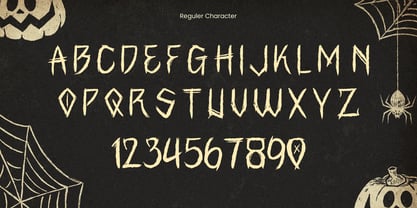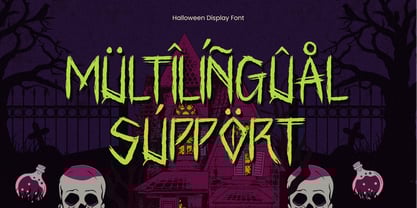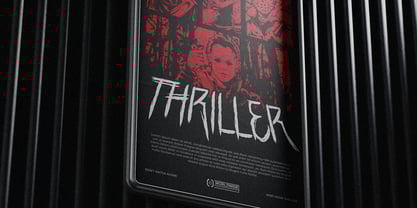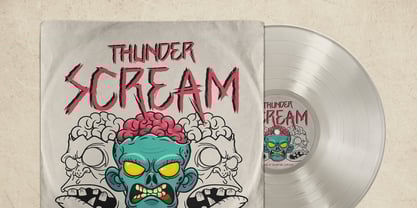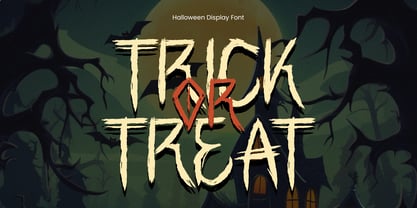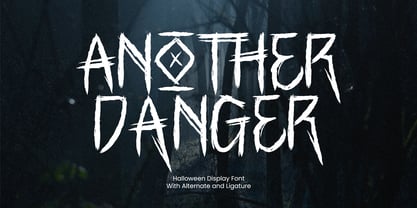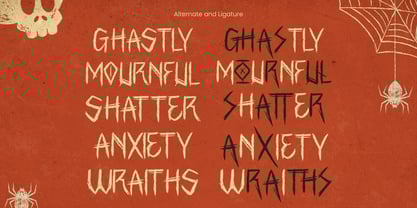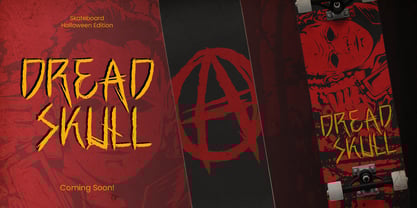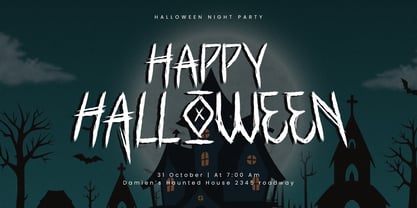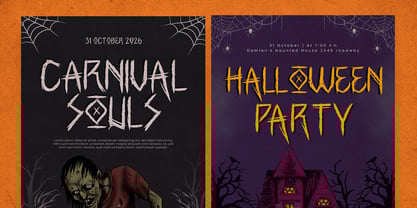
Ghosoul
The Ghosoul Font Family was designed by Virgiawan Listanto and published by Inviline. Ghosoul contains 1 styles. More about this family
Ghosoul Abigael is a spooky handwritten Halloween display font with sharp strokes and eerie character, perfect for posters, party invites, creepy titles, or haunted packaging. What you get is uppercase letters, numbers, ligatures, alternate characters, and multilingual support all in one font that’s perfect for Halloween events, horror designs, scary movie titles, gothic branding, and seasonal merch.